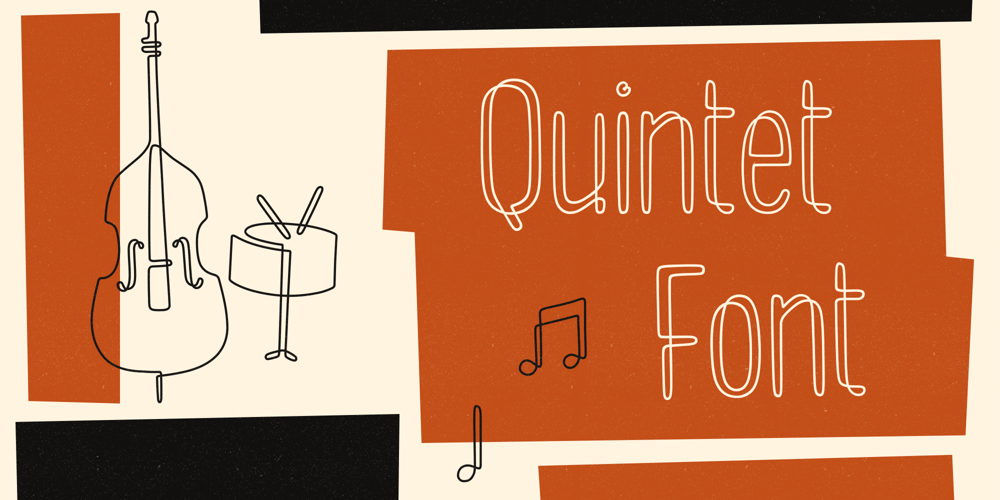
Quintet
Quintet font
Quintet Font Family was designed by Lauren Ashpole and published by Lauren Ashpole. Quintet contains 1 styles and family package options. Quintet is a narrow, stylized sans serif font made up of thin, looping lines. This font tries to walk the line between retro and modern and to incorporate some hand drawn imperfections without being too obvious about it.I kicked off designing without any particular inspiration in mind but, as time went on, started associating it in my head with an old-timey, swingy jazz aesthetic. So hopefully it captures the spirit of the Jeeves and Wooster throwback theme song and opening credits, the music of Stéphane Grappelli and Django Reinhardt (who the name is a nod to), and countless album covers from that era.